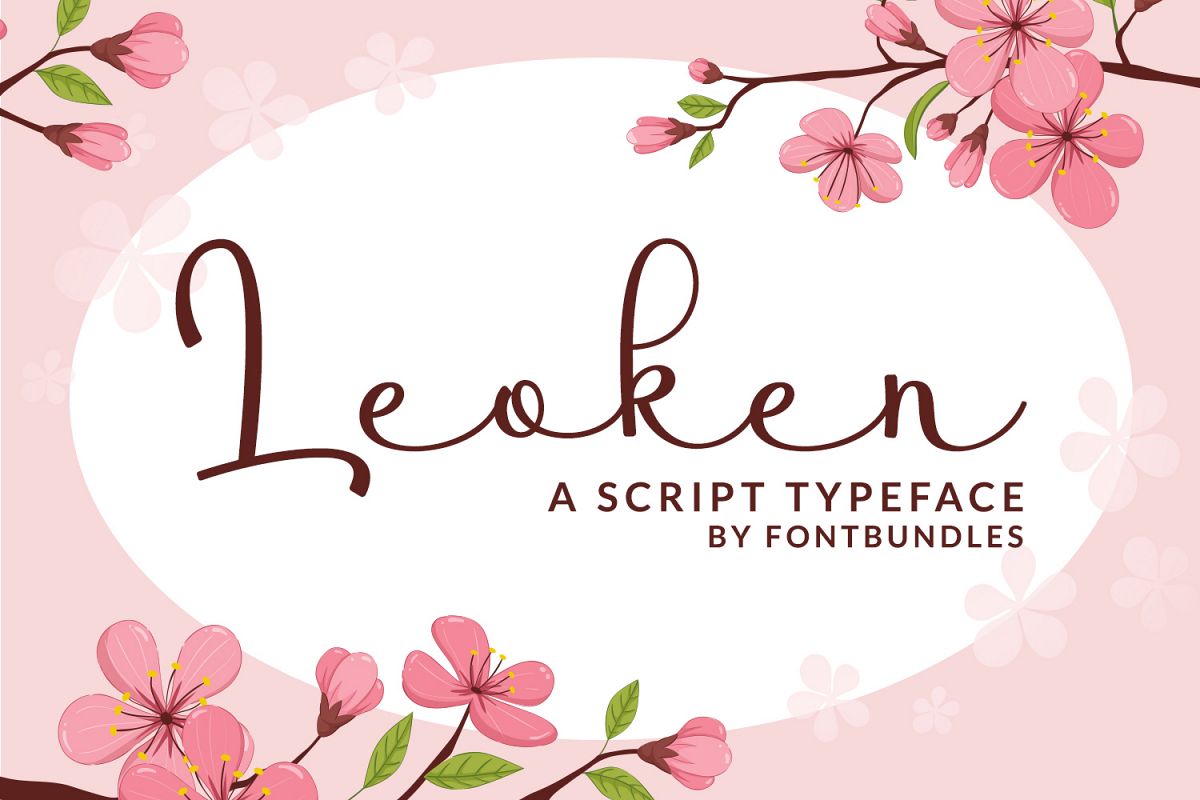
Leoken
Leoken is a fancy script typeface. Perfect for invitations, greeting cards, posters, name card, quotes, blog header, branding, logo, fashion, apparel, letter, stationery and more!